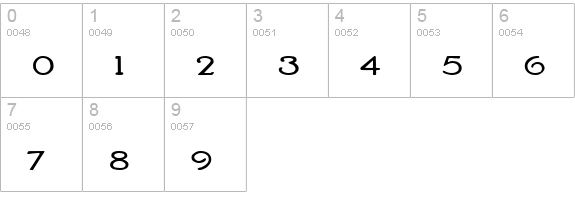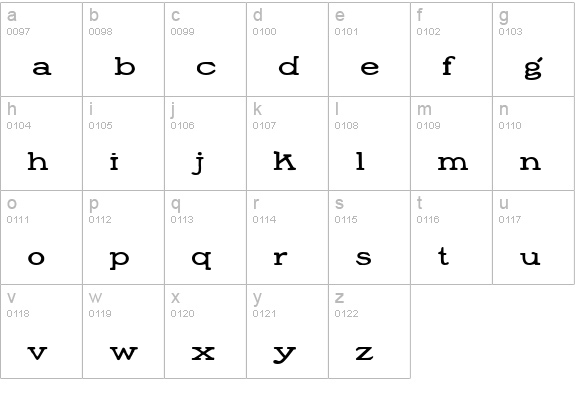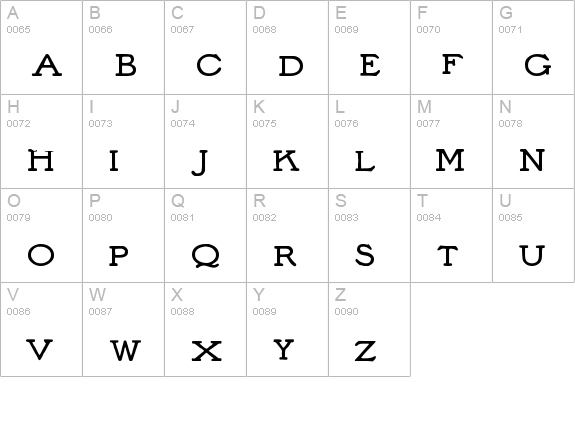
Post Monotone HPLHS Font Details
Post Monotone HPLHS font is a modern and sleek typeface that exudes a sense of sophistication and minimalism. With its clean lines and sharp edges, this font is perfect for conveying a sense of professionalism and clarity in your designs. Whether you're creating a poster, logo, or website, Post Monotone HPLHS will add a touch of elegance to your project. What's even better is that Post Monotone HPLHS font is completely free to download at FontsMarket.com. Yes, you read that right - you can enhance your design projects with this stylish font without spending a dime. So why wait? Head over to FontsMarket.com now and get your hands on this versatile and eye-catching typeface. Add a touch of sophistication to your designs with Post Monotone HPLHS font today!